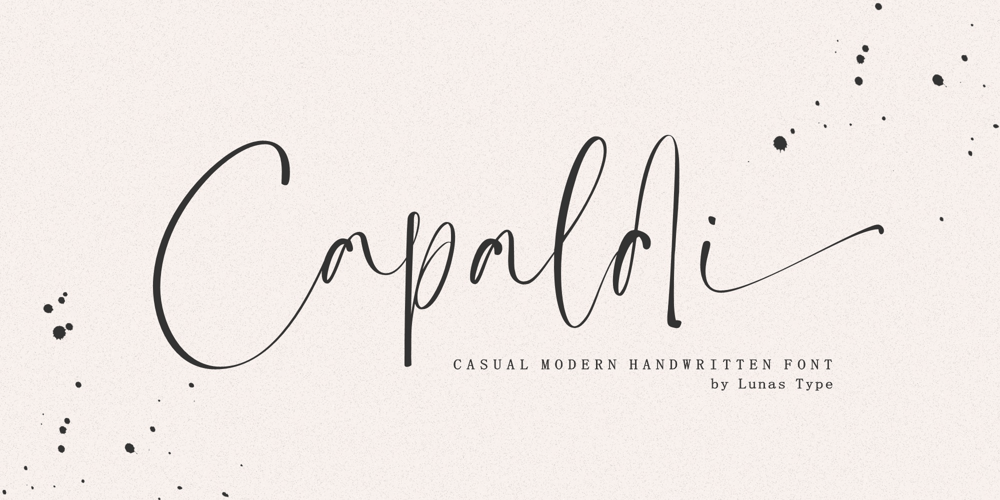
Capaldi Font Family was designed by Annas Alam Yahya and published by Lunas Type. Capaldi contains 1 styles and family package options. Introducing, Capaldi!Capaldi is a casual modern handwritten font. Capaldi comes with a lot of ligatures and ending swash that make your text is more charming and more expression.Capaldi brings natural element to your design, it’s perfect for wedding, stationery, logos, social media quotes, branding identity, and many more.